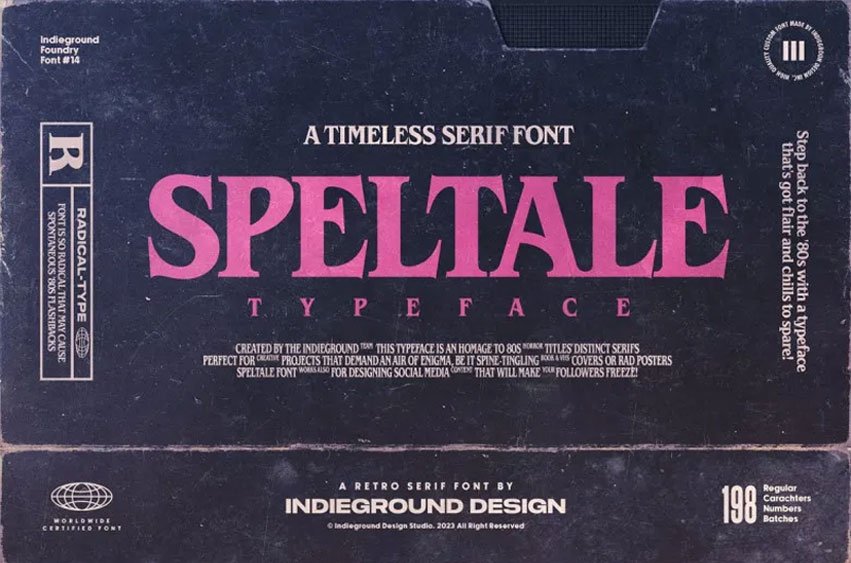
Speltale Font from Indieground combines gothic and vintage-inspired aesthetics for an eye-catching font with vintage vibes. Based off ITC Benguiat, its distinctive serifs create an unsettling vintage-influenced vibe which creates the spellbinding Speltale Font.
Speltale was developed for creative projects that aim to convey mystery. From book covers and posters, to social media posts that capture readers’ interest and hold onto them throughout a reading experience. Speltale can create social media posts that keep audiences engrossed!
Our modern take on this timeless serif font includes every character from its entire character set – as well as those mysterious symbols, ligatures and characters you were initially intrigued by when viewing its preview!